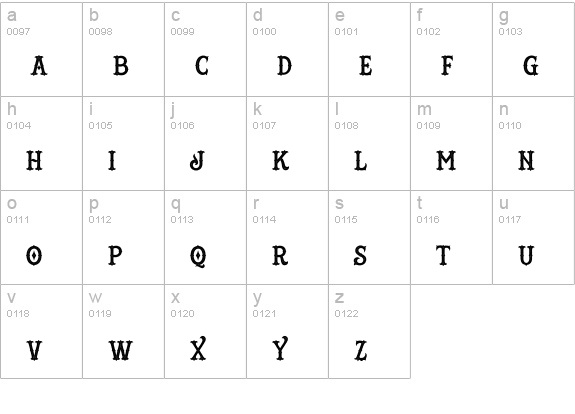
Hustlers Rough Demo font is a captivating and bold typeface that exudes an air of rebelliousness and edginess. With its rough and textured design, this font is perfect for adding a touch of rawness and authenticity to any project. This font is a versatile choice, suitable for a wide range of designs, including logos, posters, album covers, and more. Its unique and hand-drawn style sets it apart from other fonts, making it a standout option for those seeking to make a statement with their typography. One of the best parts about Hustlers Rough Demo font is that it is completely free to use. That's right, this amazing font is available for free download at FontsMarket.com. This means that you can enhance your designs without worrying about breaking the bank. Whether you're a professional designer or a hobbyist, Hustlers Rough Demo font offers a high-quality and visually appealing option for your creative projects. Its free availability makes it even more accessible to designers of all levels, allowing them to experiment and explore their creativity without any limitations. So why wait? Head over to FontsMarket.com and grab your free download of the Hustlers Rough Demo font today. Elevate your designs with this captivating and unique typeface, and let your creativity shine.